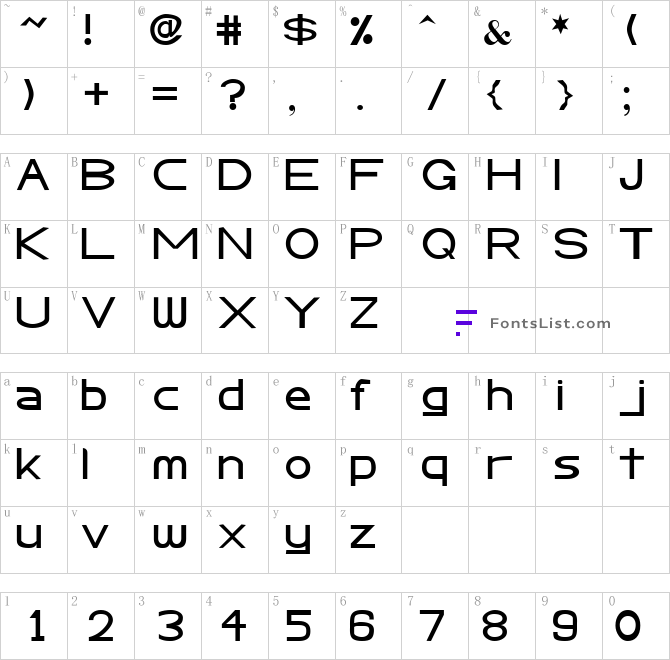
- Font Name:Abtechia
- Full Name:Abtecia Basic Sans Serif Font
Abtecia-Basic-Sans-Serif-Font.ttf is a very beautiful artistic font, Abtecia-Basic-Sans-Serif-Font.ttf is widely used in the design and printing of various books and pictures,Abtecia-Basic-Sans-Serif-Font.ttf has a strong visual impact,Abtecia-Basic-Sans-Serif-Font.ttf is a commonly used font in newspapers, magazines and books, and is used in posters, e-commerce Poster design, store design, logo design, font design and other fields.Abtecia-Basic-Sans-Serif-Font.